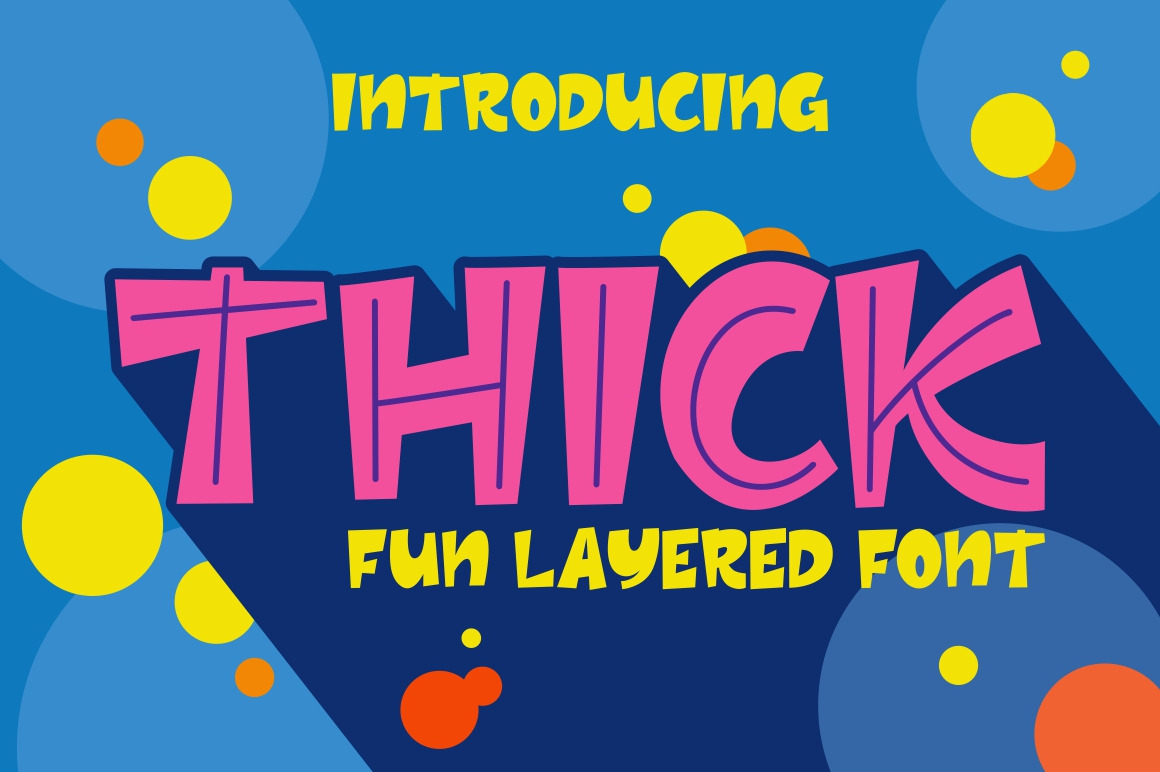
THICK - Layered Font
THICK Layered Font is perfect for bold advertising campaigns, dimensional signage projects, impactful poster designs, dynamic logo creation, eye-catching retail displays, powerful social media graphics, attention-grabbing promotional materials, and multi-dimensional branding applications.
What makes THICK Layered Font exciting is its dimensionally powerful character that creates extraordinary visual depth and commanding presence through innovative layering technology that transforms flat typography into three-dimensional masterpieces. The font features substantial letterforms with multiple layer options that allow designers to build complex, eye-catching compositions with incredible depth and visual impact. Its dimensional aesthetic and layering versatility make it perfect for brands that need to break through visual noise and create unforgettable impressions while providing designers with unprecedented creative control over depth, shadow, and dimensional effects.
THICK Layered Font family includes multiple complementary layers such as base, shadow, outline, and highlight variations that work together seamlessly to create sophisticated dimensional effects. The system may include various texture options, depth alternates, and dimensional decorative elements that enhance the font's three-dimensional capabilities, providing designers with comprehensive tools for creating stunning multi-layered typographic compositions that command attention and create lasting visual impact.
This dimensionally innovative typeface system has gained recognition among creative agencies and bold brands seeking cutting-edge layered typography solutions that deliver maximum visual impact and creative flexibility. THICK Layered Font Free Download provides an excellent opportunity to layer with this dimensional font system before investment. The font's advanced layering capabilities include perfectly aligned multiple layers, dimensional symbols, and depth-enhanced glyphs that work perfectly for advertising and high-impact design industry applications. Whether you're designing for bold retail brands, impactful advertising campaigns, or attention-demanding promotional materials, THICK Layered Font delivers the dimensional power your project demands. Its versatile layering nature makes it suitable for various high-impact applications including billboard advertising, retail environments, event branding, and dimensional lifestyle companies, ensuring your typography choices communicate bold presence and creative innovation while creating memorable brand experiences that break through the clutter and establish commanding visual authority through its distinctively thick and authentically dimensional visual character.